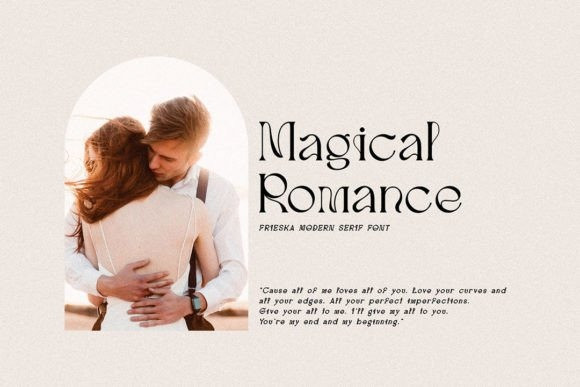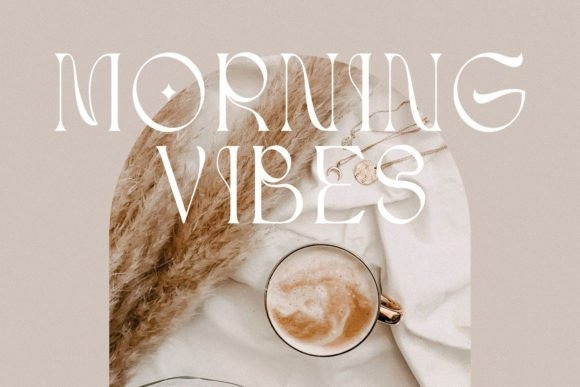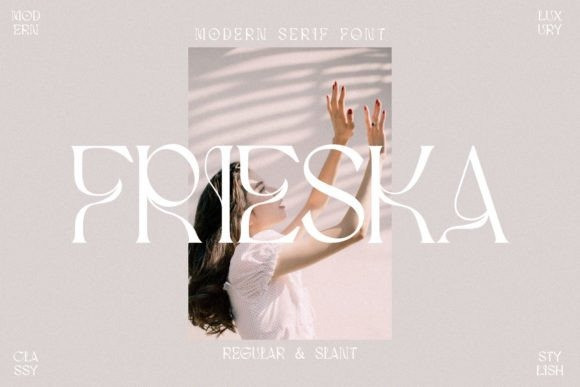
Frieska Font
Frieska Font is a decorative serif typeface that has its own unique style & modern look. It’s the perfect fit for all luxury projects, such as wedding invitations, signatures, luxury logos, printed quotes, greetings cards, social media headers, product packaging, and many more!